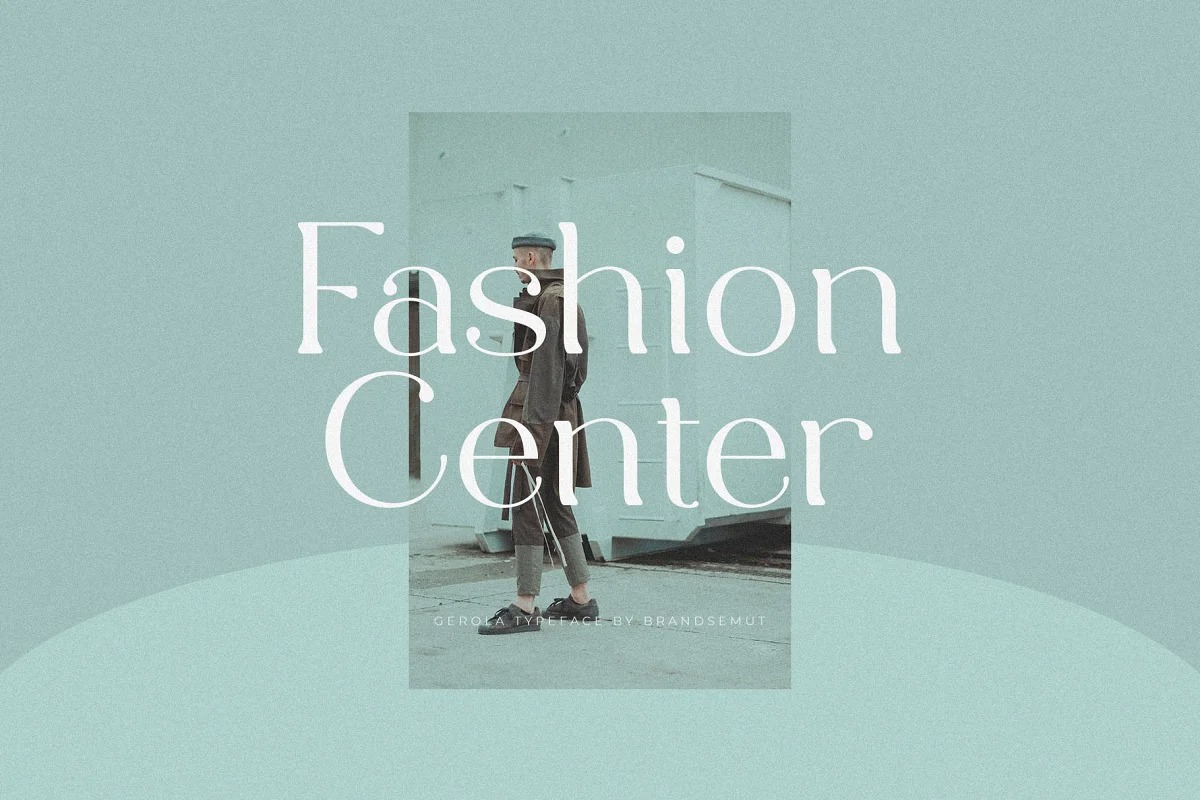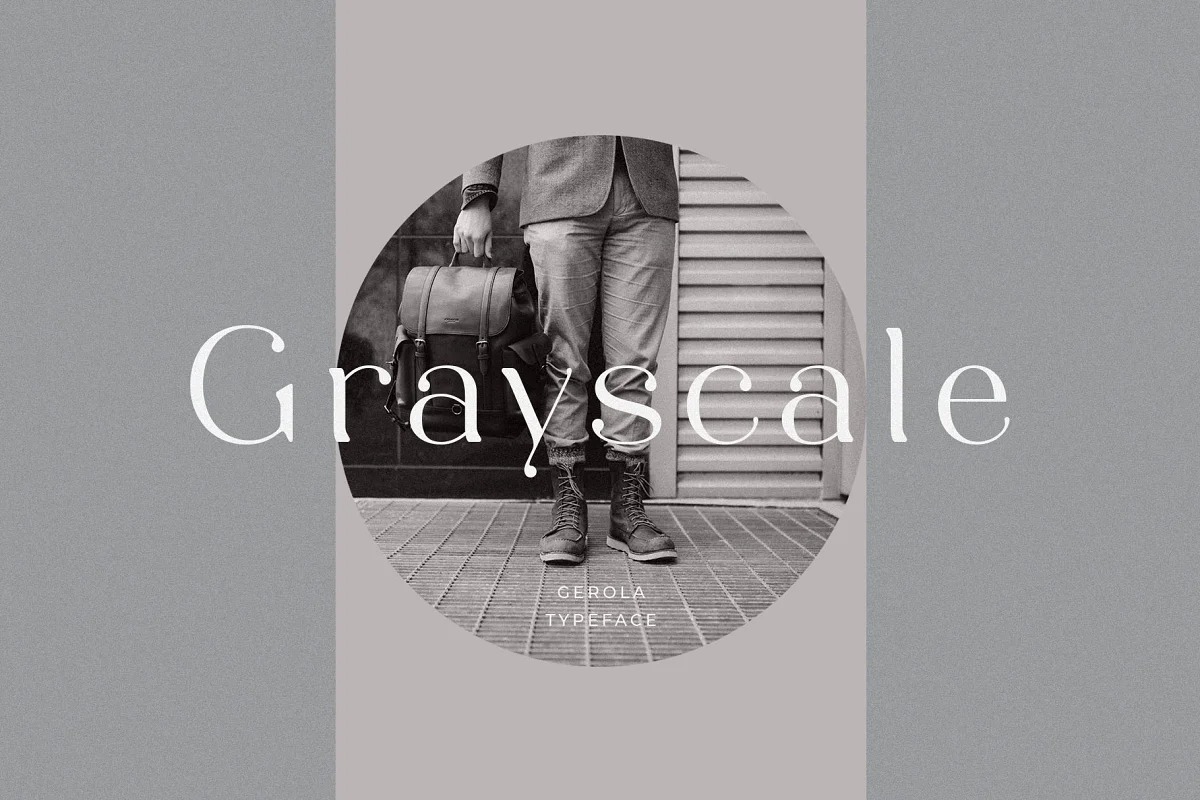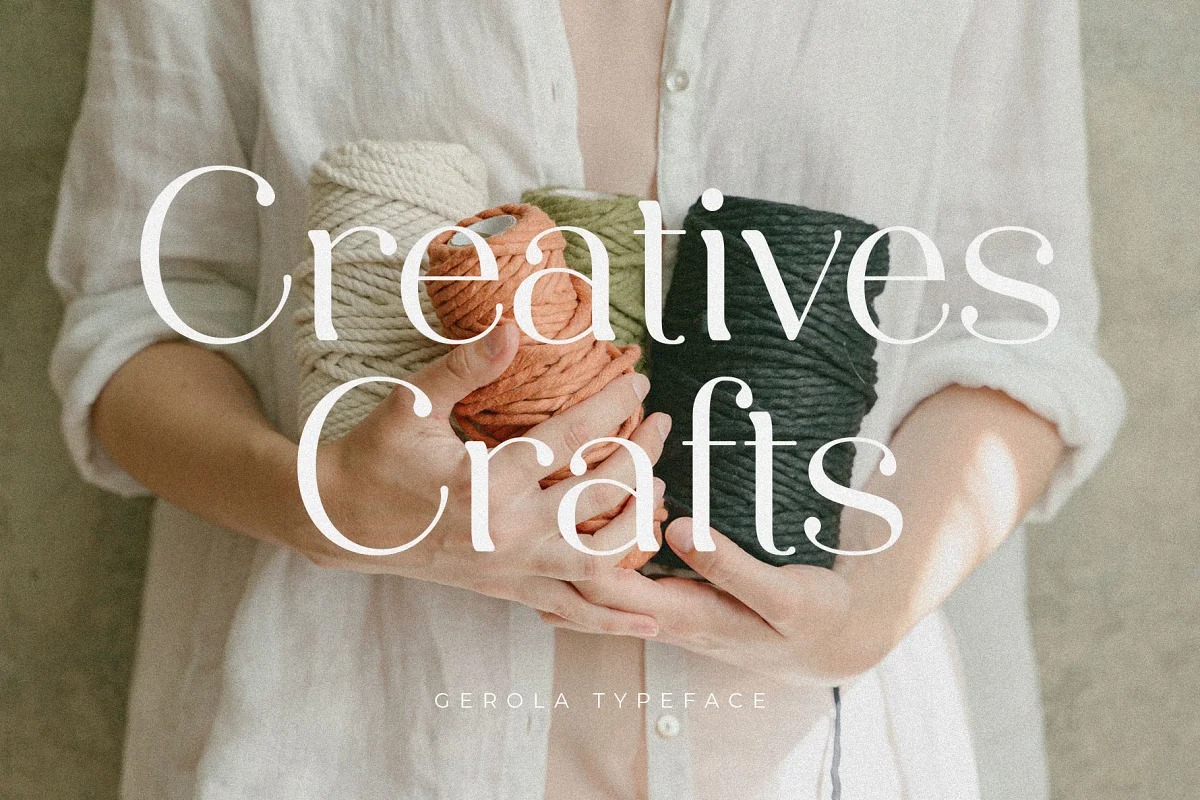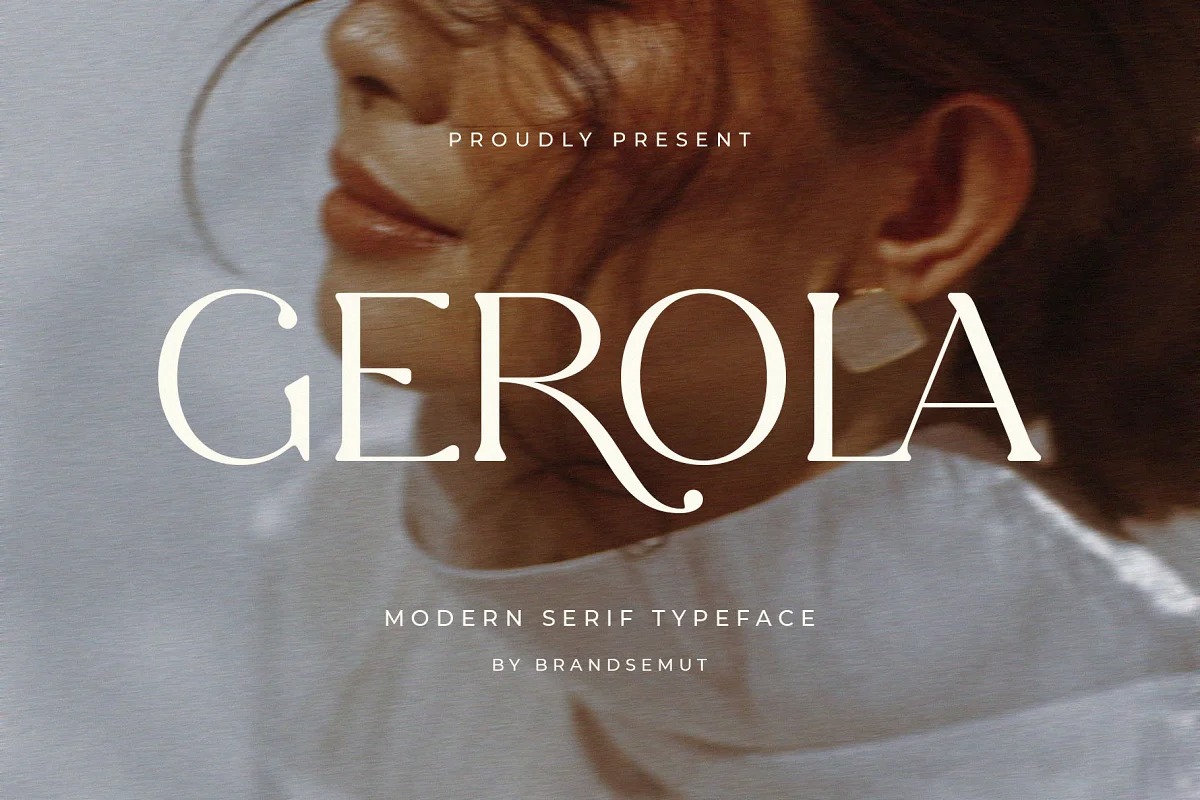
Gerola Font
Gerola Serif Font
It’s a subtle retro-aesthetique typeface. Made from font designer named BrandSemut. Gerola is a modern and stylish typeface, best used as a display for headings, logos, branding, magazines, product packaging and invitations. Gerola come with clean lines and smooth curves give any project an extra touch of class.